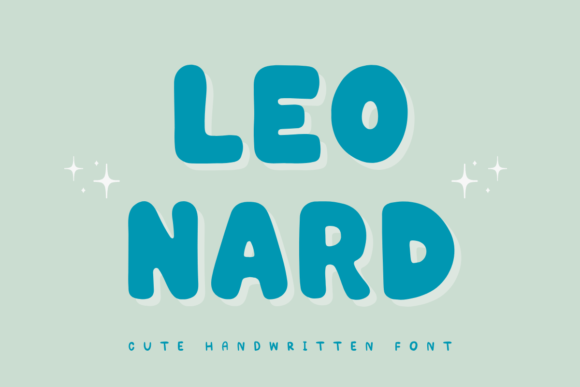
Journey into the world of Leonard Font, a captivating display font that will add a touch of charm and delight to your creative projects. Its soft, rounded edges and playful baseline evoke a sense of whimsy and warmth, making it perfect for expressing heartfelt messages and cherished memories.
Crafted by the talented team at Kanink Type Studio, Leonard Font exudes a friendly and welcoming vibe that instantly draws people in. Its versatile nature makes it suitable for a wide range of applications, including greeting cards, invitations, posters, social media graphics, and even silk screens and sublimation printing. Let your imagination run wild as you explore the endless possibilities of this charming font.
Unlike ordinary fonts that blend into the background, Leonard Font possesses a unique personality that commands attention. Its distinctive style adds a personal touch to your designs, whether you're creating heartwarming invitations, eye-catching posters, or memorable social media posts. It's the perfect choice for those who want to make a lasting impression.
With Leonard Font, you can effortlessly create designs that resonate with your audience. Its natural, handwritten feel adds a touch of authenticity and sincerity to your messages, making them more relatable and impactful. Let your words dance across the page in a way that captivates hearts and minds.
So why settle for ordinary when you can have extraordinary? Embrace the magic of Leonard Font and unlock the potential of your creative vision. Experience the joy of crafting designs that captivate, inspire, and leave an unforgettable mark on everyone who sees them. Make Leonard Font your go-to choice for adding a touch of whimsy and delight to your next project. Discover the beauty of creative expression with Leonard Font today!